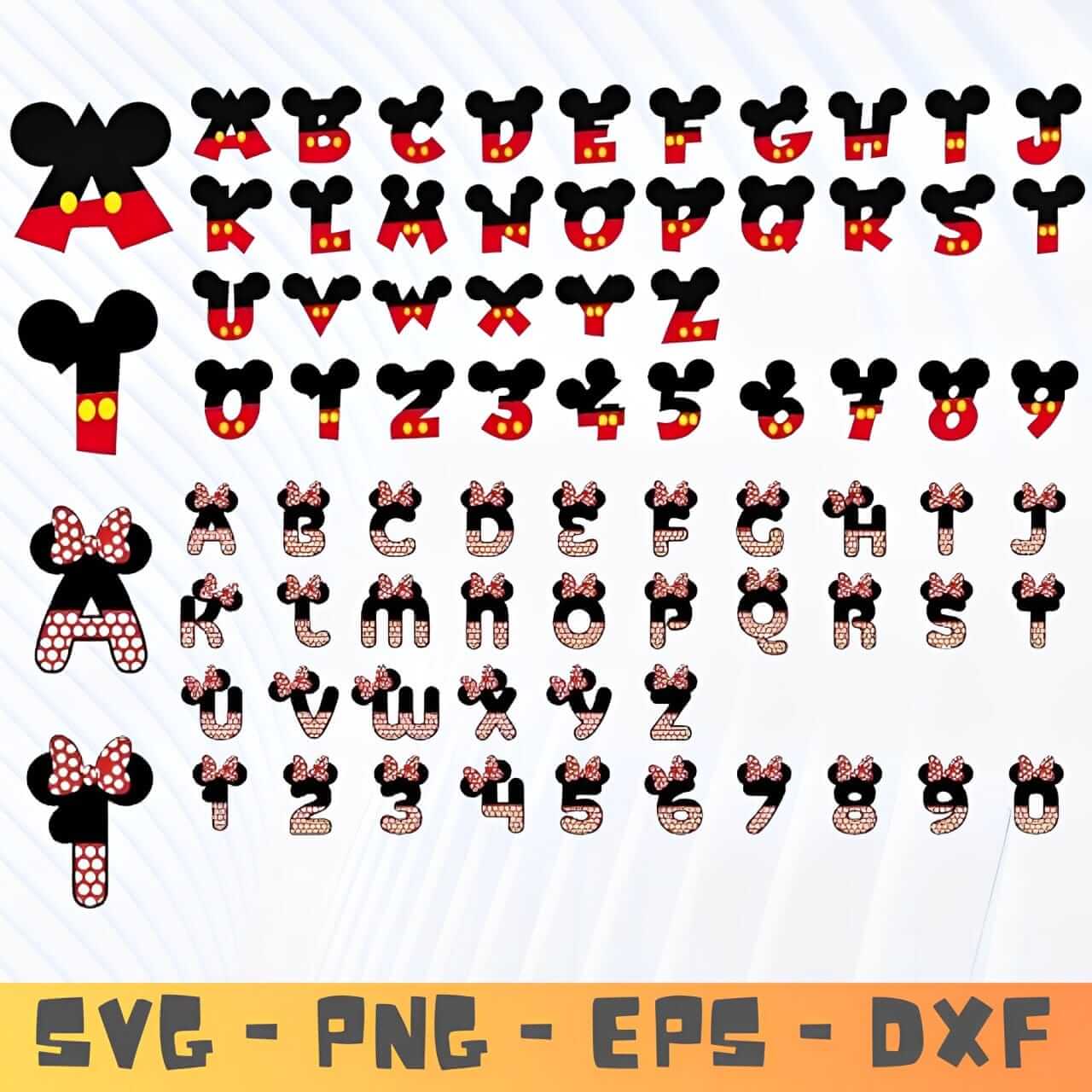
Mouse Alphabet SVG, Mouse Font SVG, Letters SVG, Customize Gift Svg
Elevate your creative projects with this comprehensive Mouse Alphabet SVG collection. Perfect for crafting personalized gifts, custom apparel, and unique designs, this font-style SVG set features every letter rendered in charming mouse-themed illustrations. Ideal for vinyl cutting, screen printing, and digital design work, these scalable vector files maintain crisp quality at any size. Whether you're designing custom merchandise, personalized cards, or decorative items, this versatile alphabet set provides professional-grade assets for both hobbyists and experienced designers. Fully customizable and ready to use in your favorite design software.